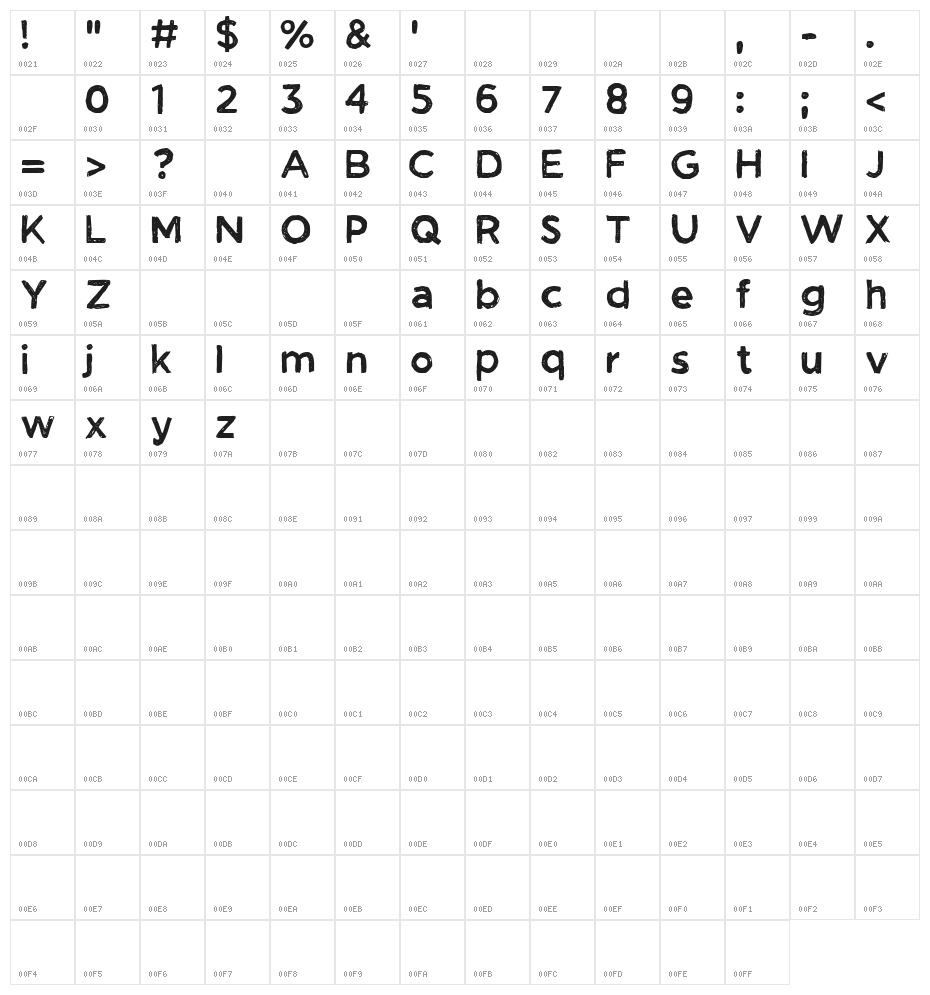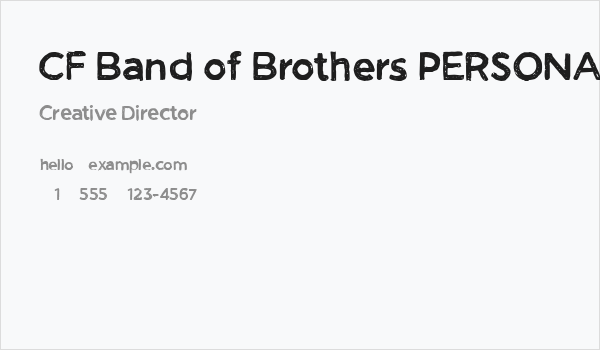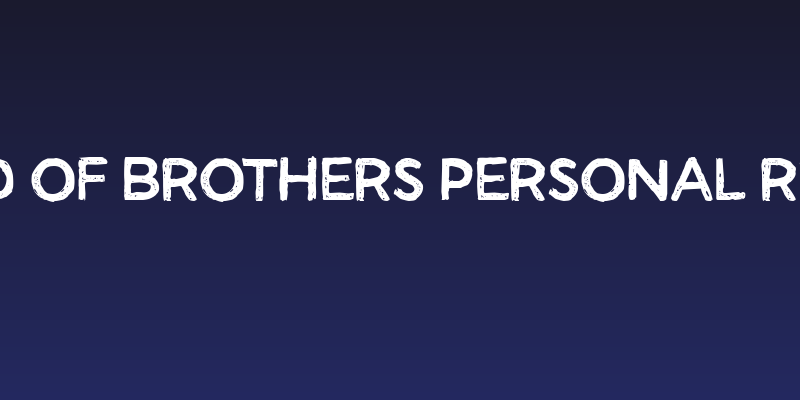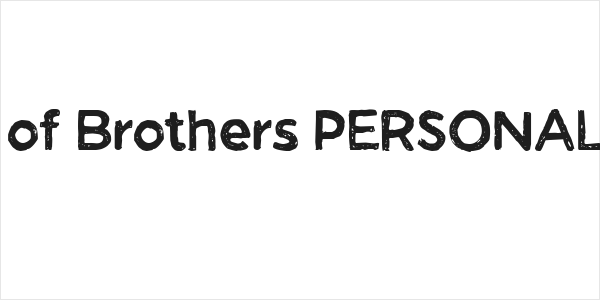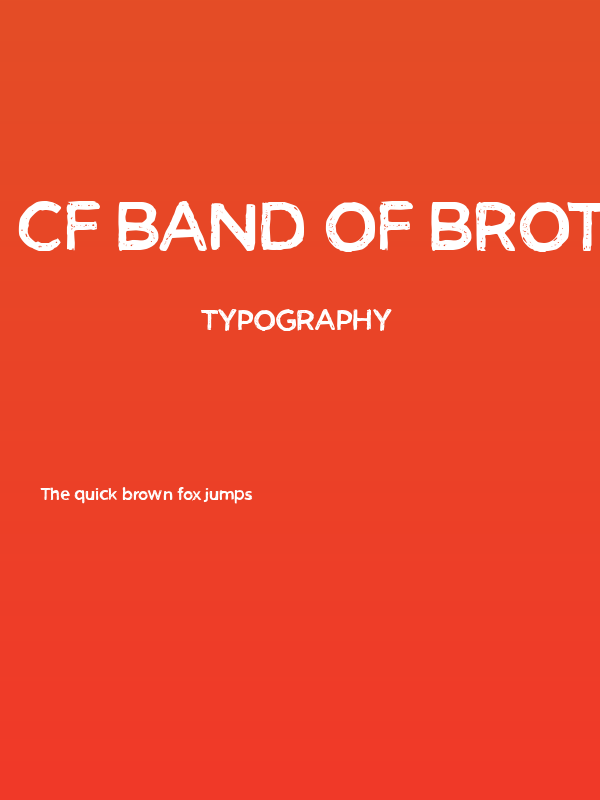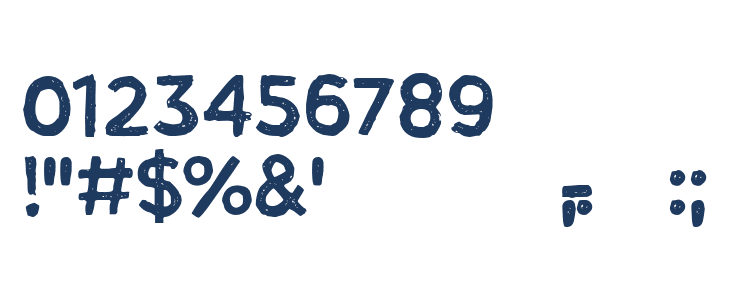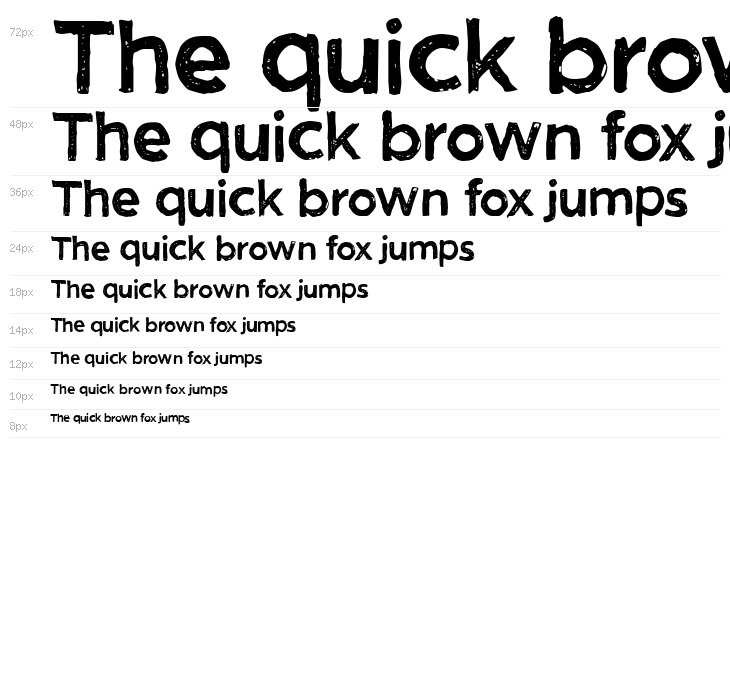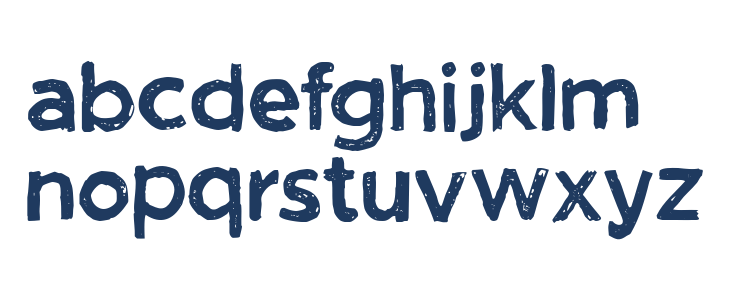
CF Band of Brothers PERSONAL Regular Font
CF Band of Brothers PERSONAL Regular Description
This font features a rugged, hand-drawn style with a textured appearance that mimics the look of chalk or crayon on a rough surface. The characters are bold and slightly irregular, giving them a casual and playful feel. The uppercase and lowercase letters maintain a consistent style, with rounded edges and a slight tilt that adds to the informal aesthetic. Numbers and special characters are designed with the same textured effect, ensuring a cohesive look across all elements. This font is ideal for projects that require a touch of whimsy and creativity, such as children's books, playful branding, or artistic posters.
| Proposed Projects | Children's books, playful branding, artistic posters, casual invitations. |